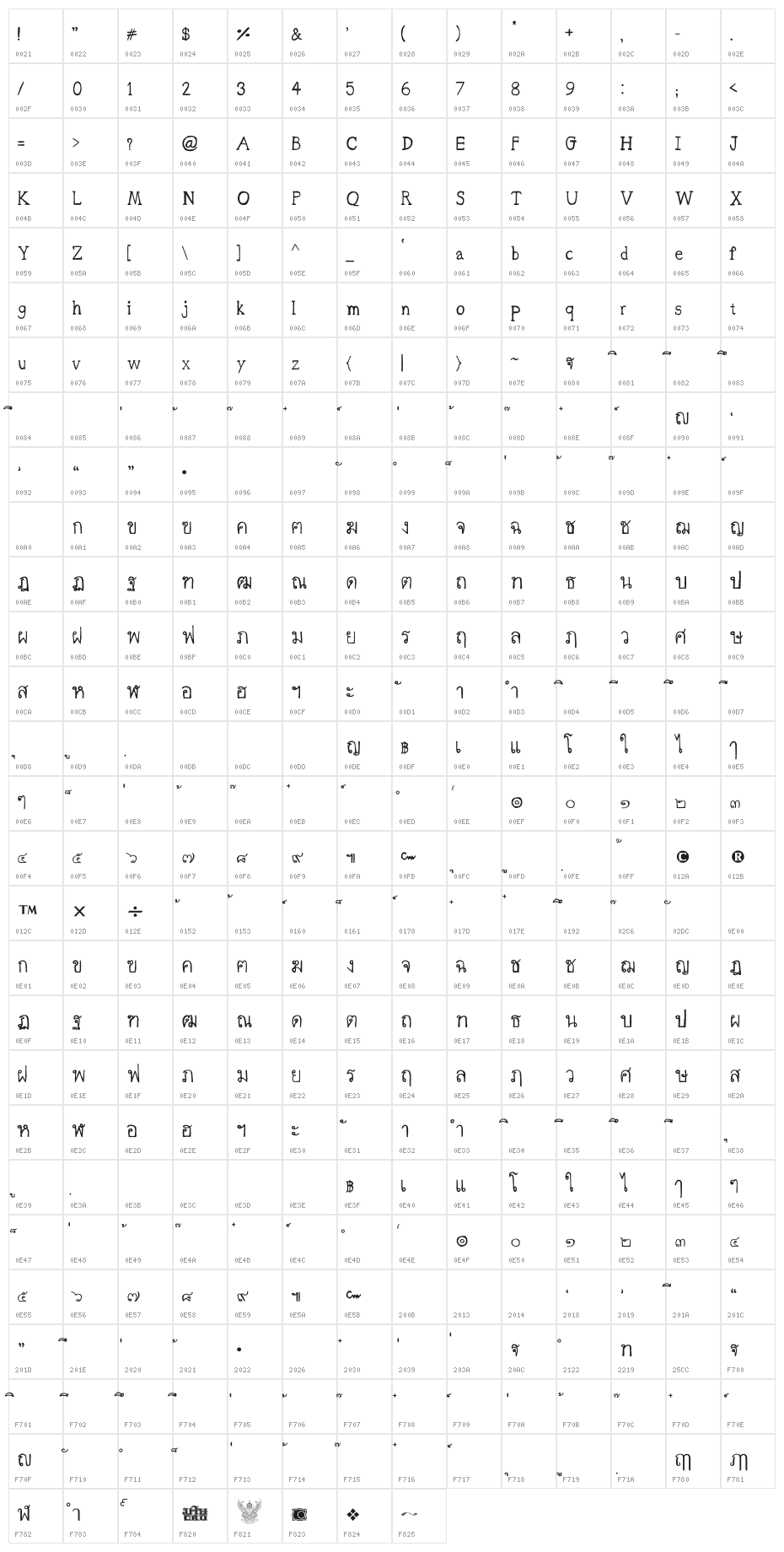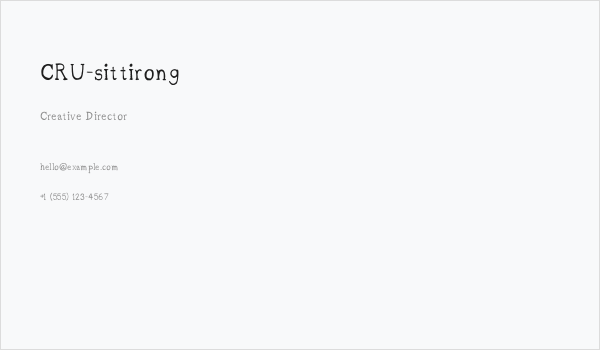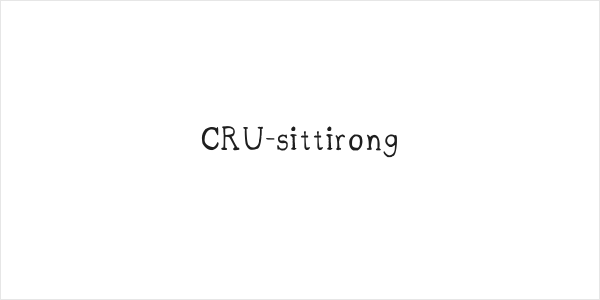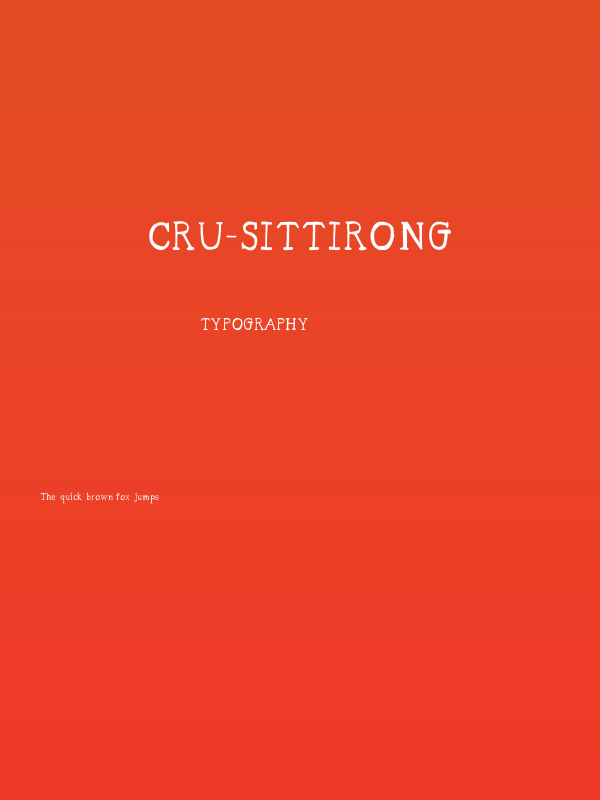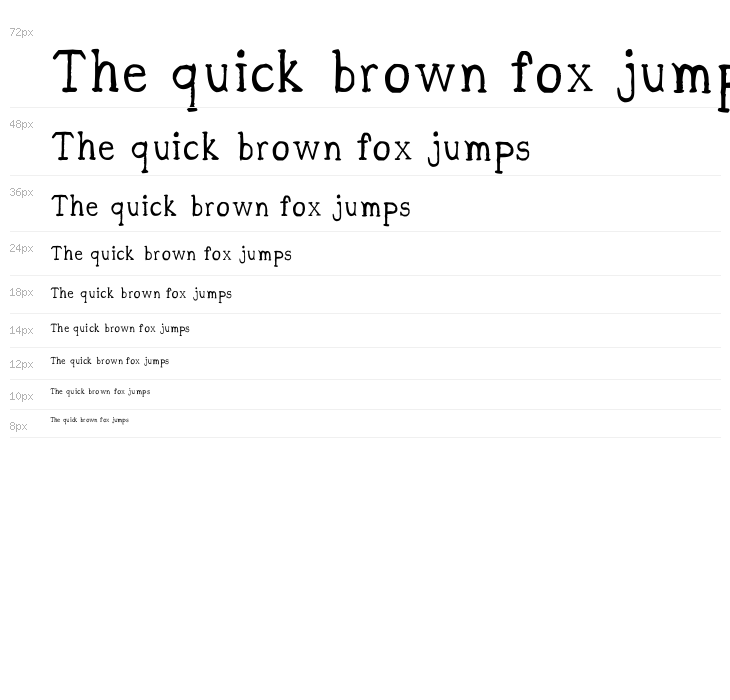
CRU-sittirong Font
CRU-sittirong Description
This font exhibits a distinctive and artistic style, characterized by its irregular and slightly distressed appearance. The uppercase letters have a playful, hand-drawn quality with varying stroke widths, giving them a unique and dynamic look. The lowercase letters maintain this whimsical style, with some characters featuring unexpected curves and angles. Numbers and special characters are consistent with the overall design, adding to the font's charm. This font's uneven texture and creative flair make it stand out, offering a blend of vintage and artistic appeal.
| Overall Style | Vintage, Artistic |
| Proposed Projects | Ideal for creative projects such as posters, invitations, and branding that require a unique and artistic touch. |